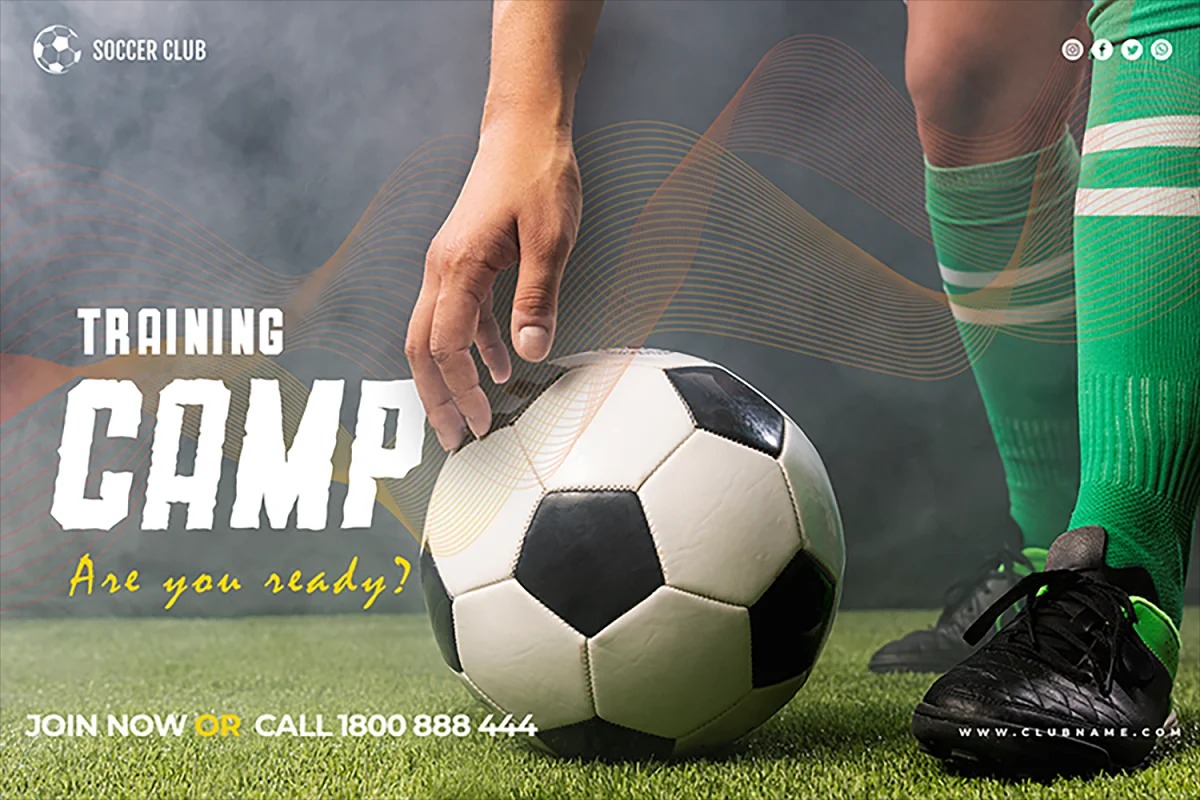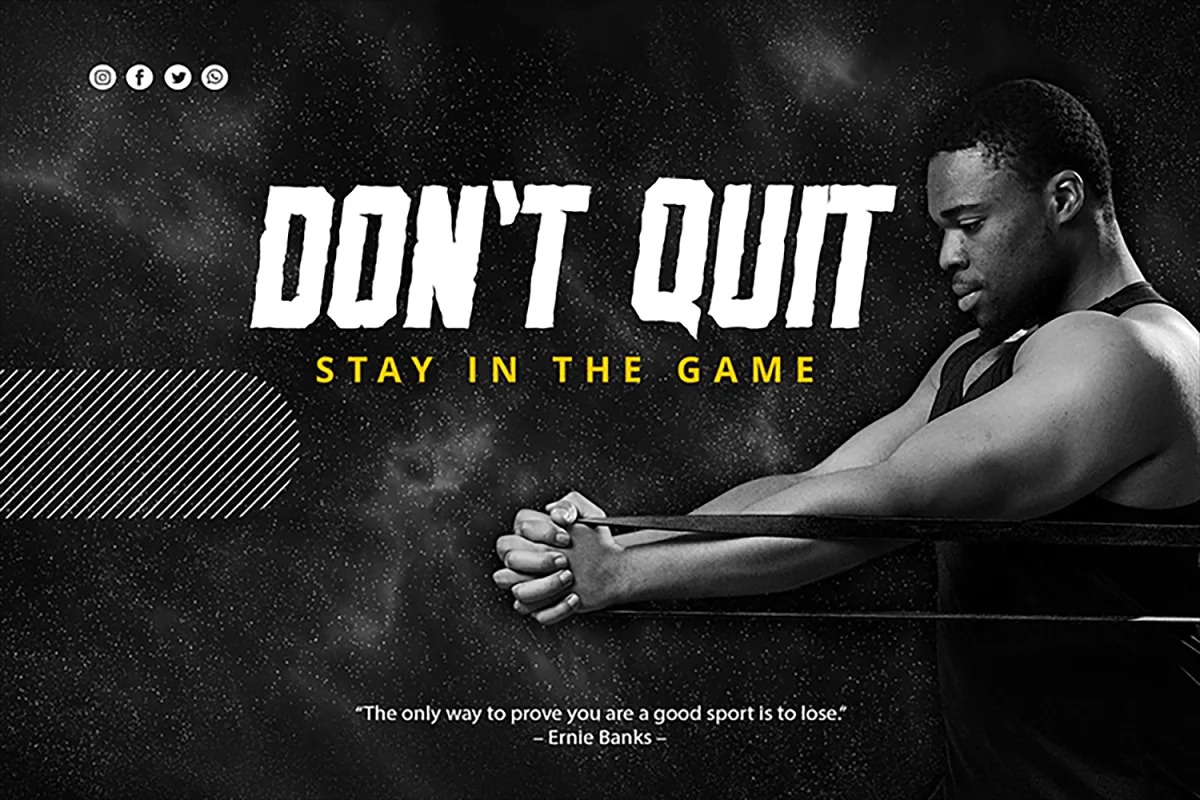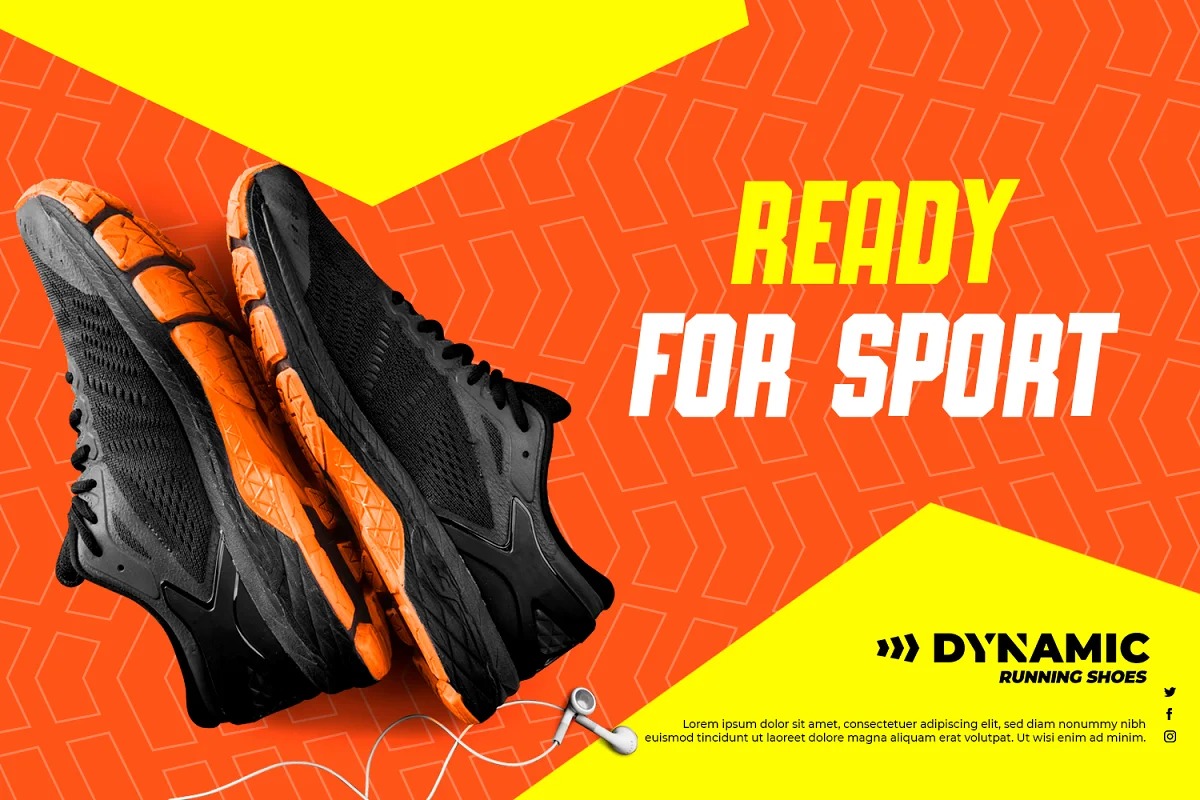
Slimedunk Font
Slimedunk Display Font
This sans serif font has a block style that makes it stand out from the rest. It’s also incredibly easy to read, so it’s perfect for any type of project. This font would be perfect for E-sport Logo, film posters, games, sports and any project. It’s also perfect for that delicate look that you want in your invitations, poster.